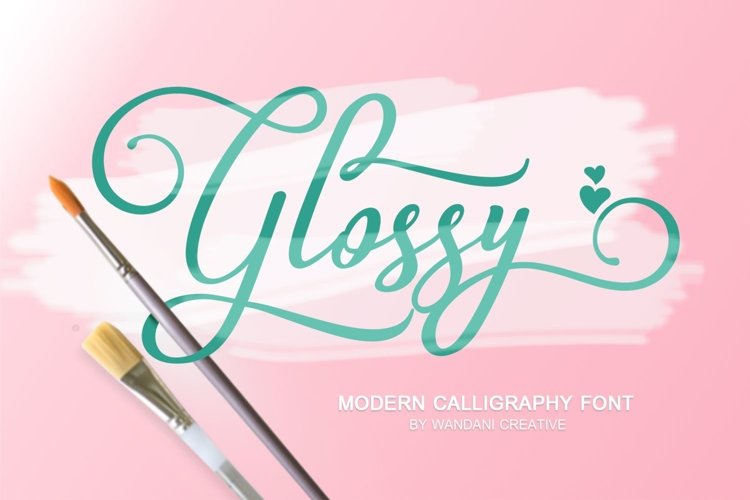
Glossy Font
"Glossy" is a beautiful, elegant and charming script font in appearance and design. This font comes with various characters and ligatures, so you can make the most interesting calligraphy design in a simple and easy way. It's perfect for branding, packaging design, wedding, logos, etc.
"Glossy" includes full set of lovely uppercase and lowercase letters, multilingual symbols, numerals, punctuation, alternative character and ligatures. All lowercase letters include beautiful and unique (each letter has own "unpatterned" ending) beginning and ending swashes. Also, includes following multilingual symbols.